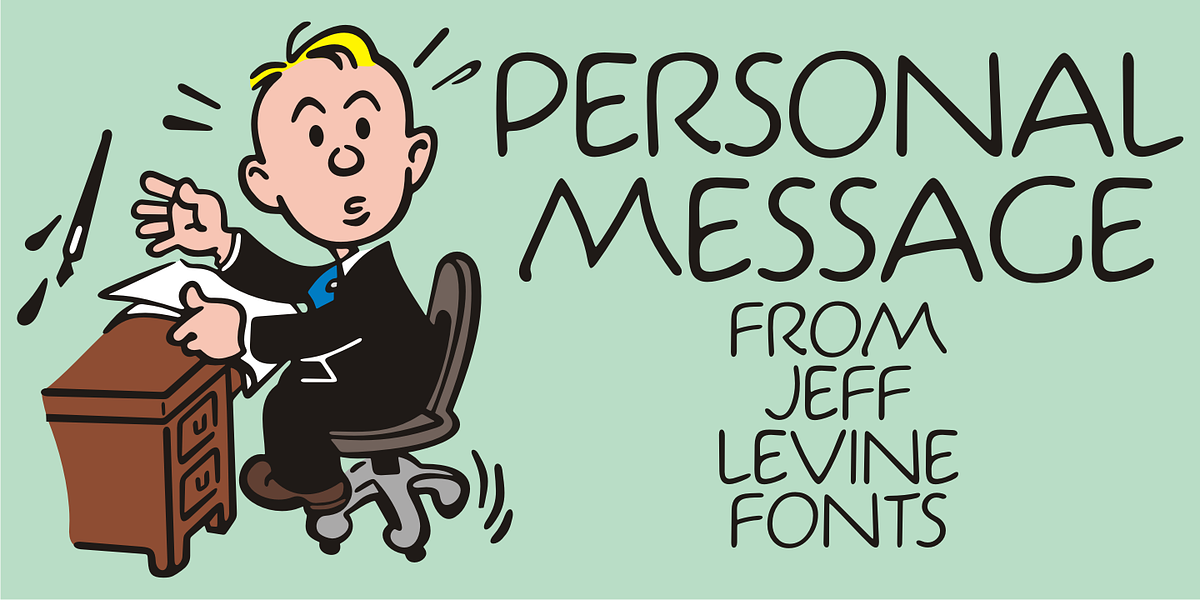
Personal Message JNL
Inspired by the calligraphic poster art of Santa Fe’s Randall Hasson, Personal Message JNL is part calligraphic, part cartoon lettering.
A light, casual and friendly design, Personal Message JNL can be applied to many different print or web projects with equally attractive results.